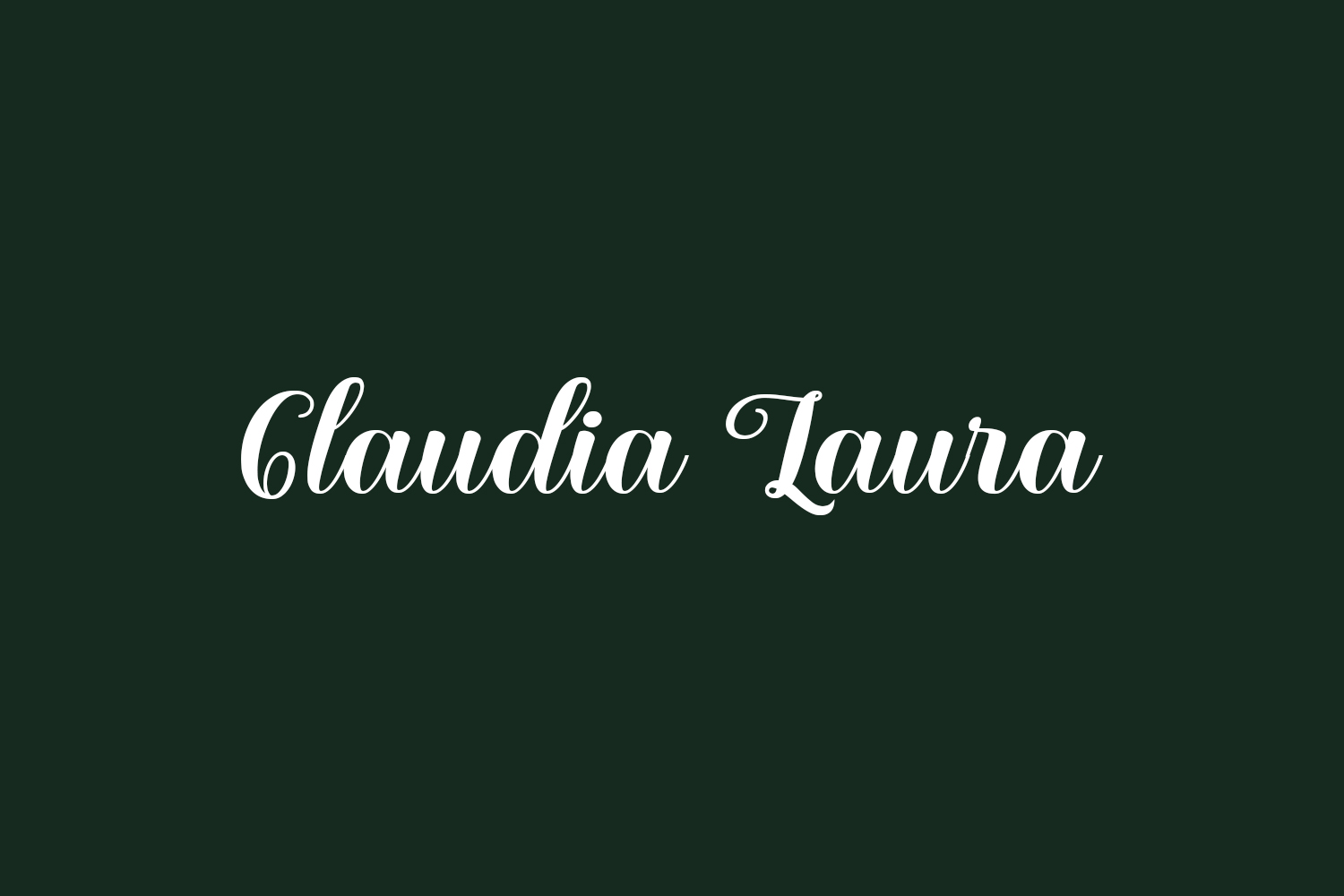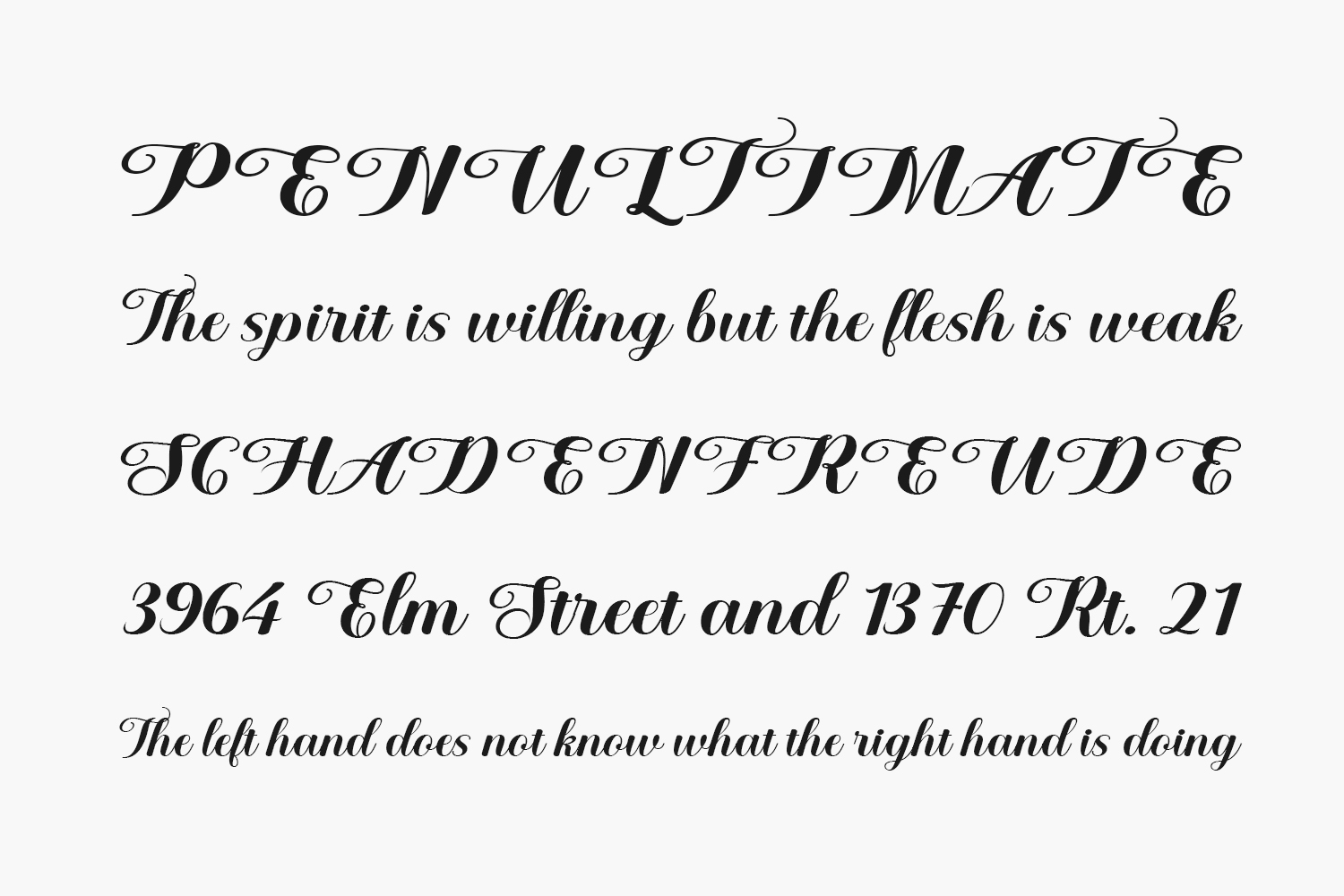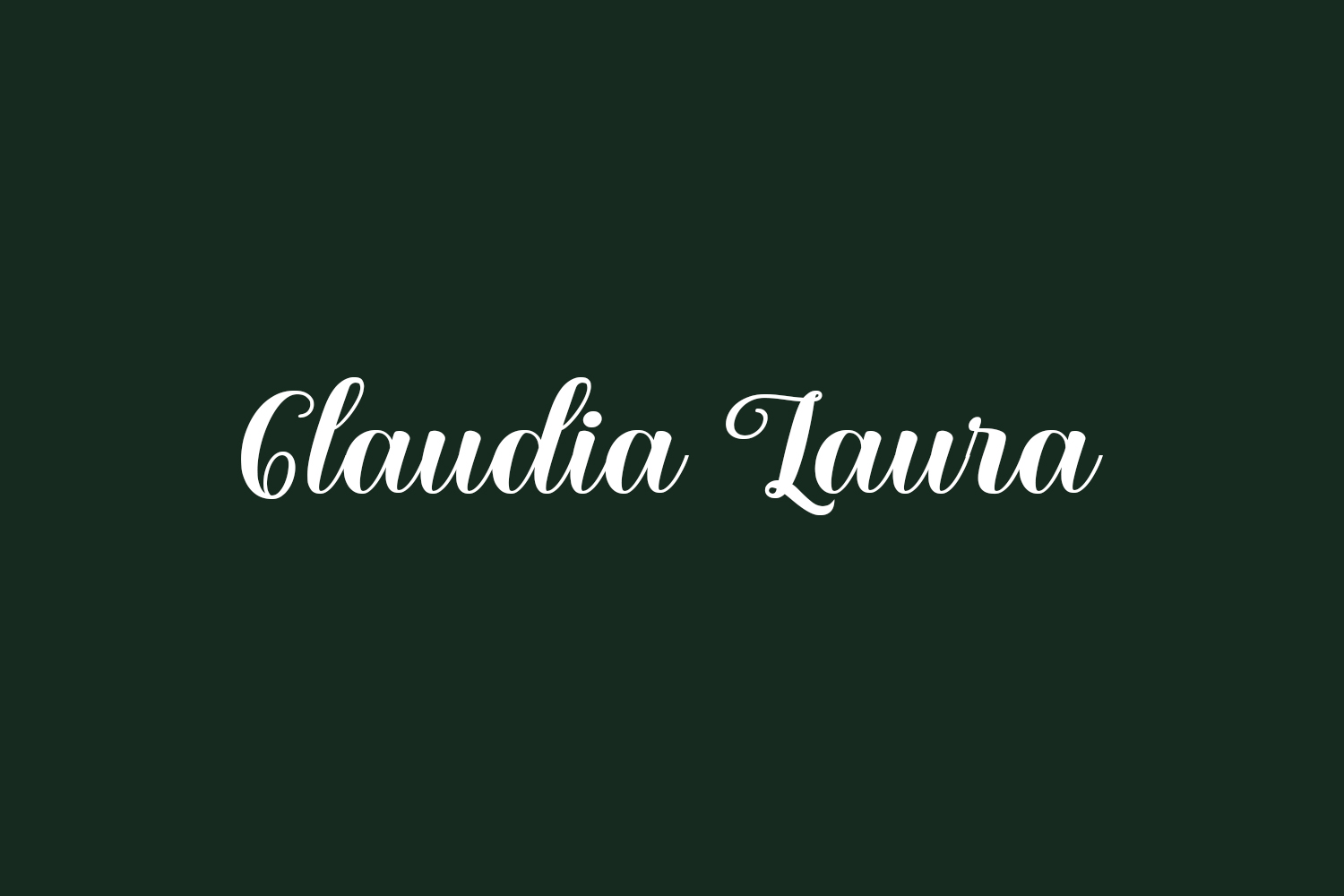
Claudia Laura Free Font is an elegant script font with a contemporary atmosphere and impeccable form, inspired by a timeless classic calligraphy. Claudia Laura Free Font was designed by Staircase Studio and is free for personal use only. Please purchase the full version for commercial use.